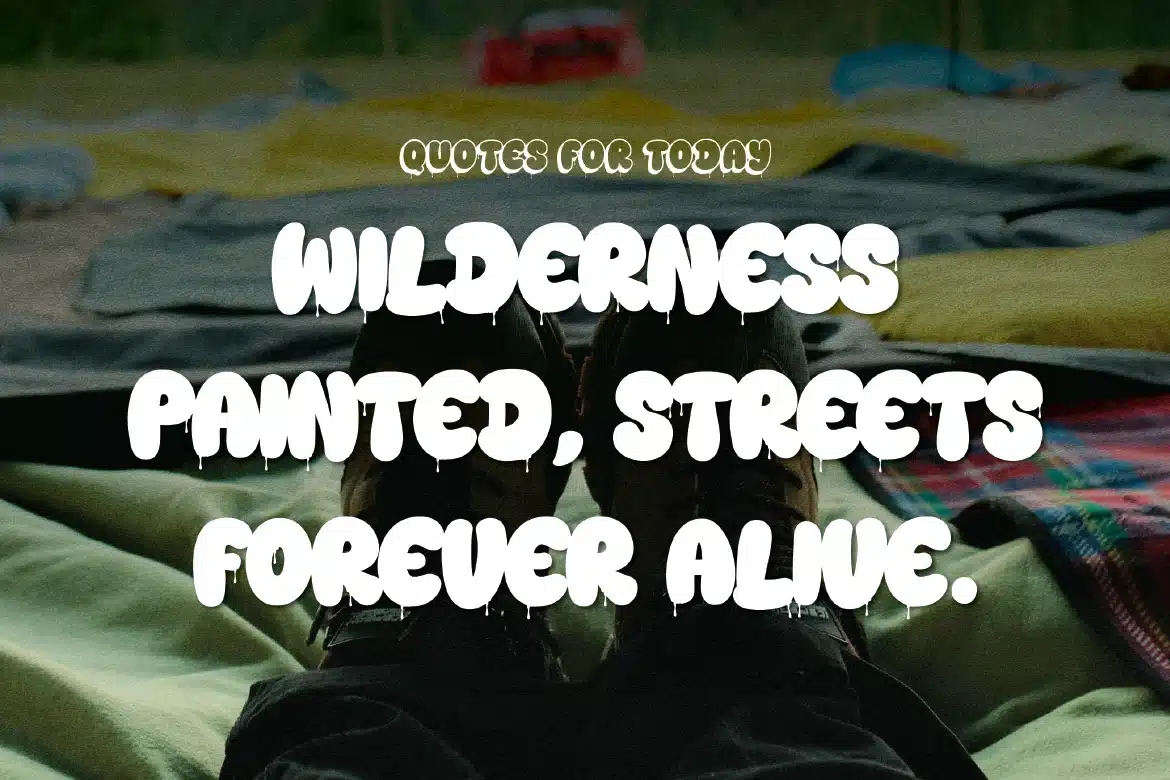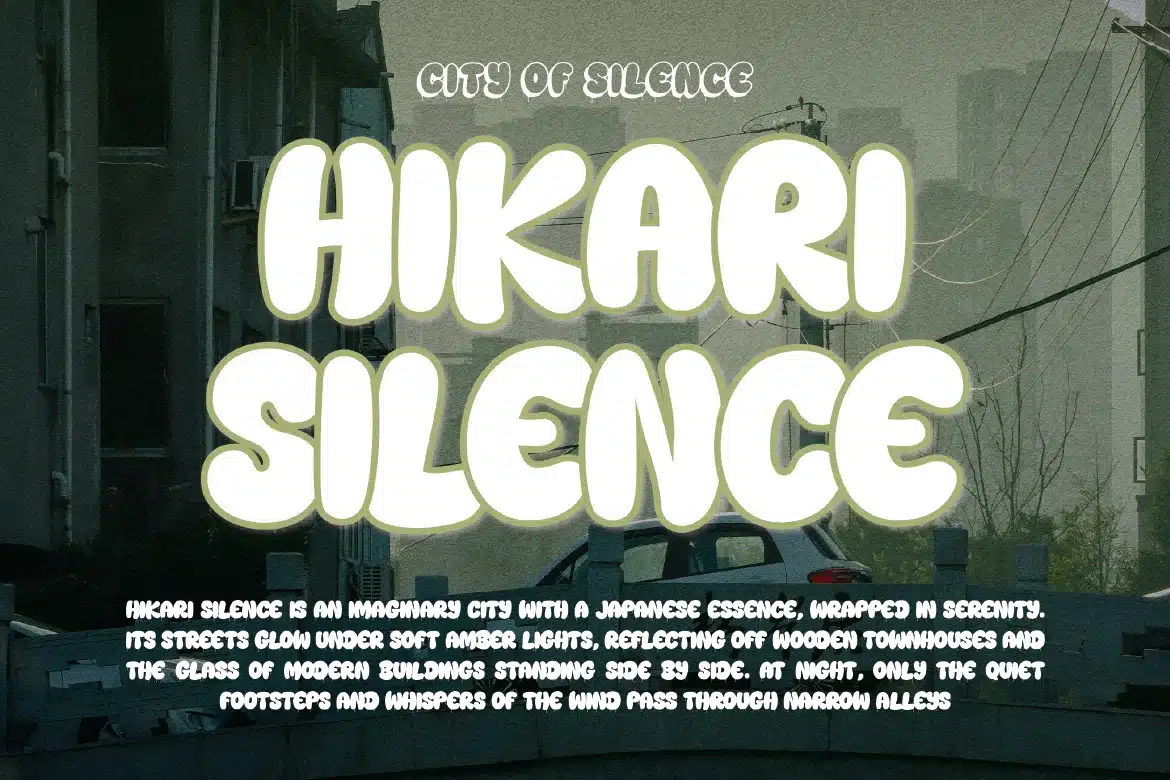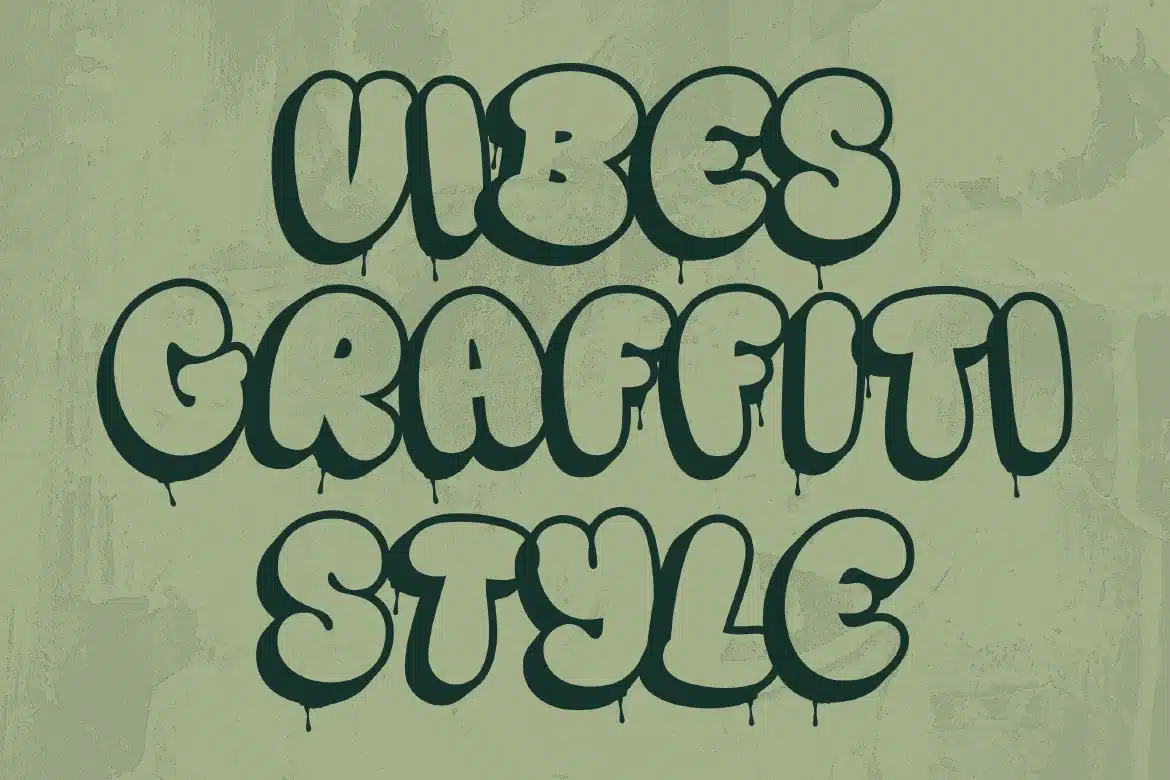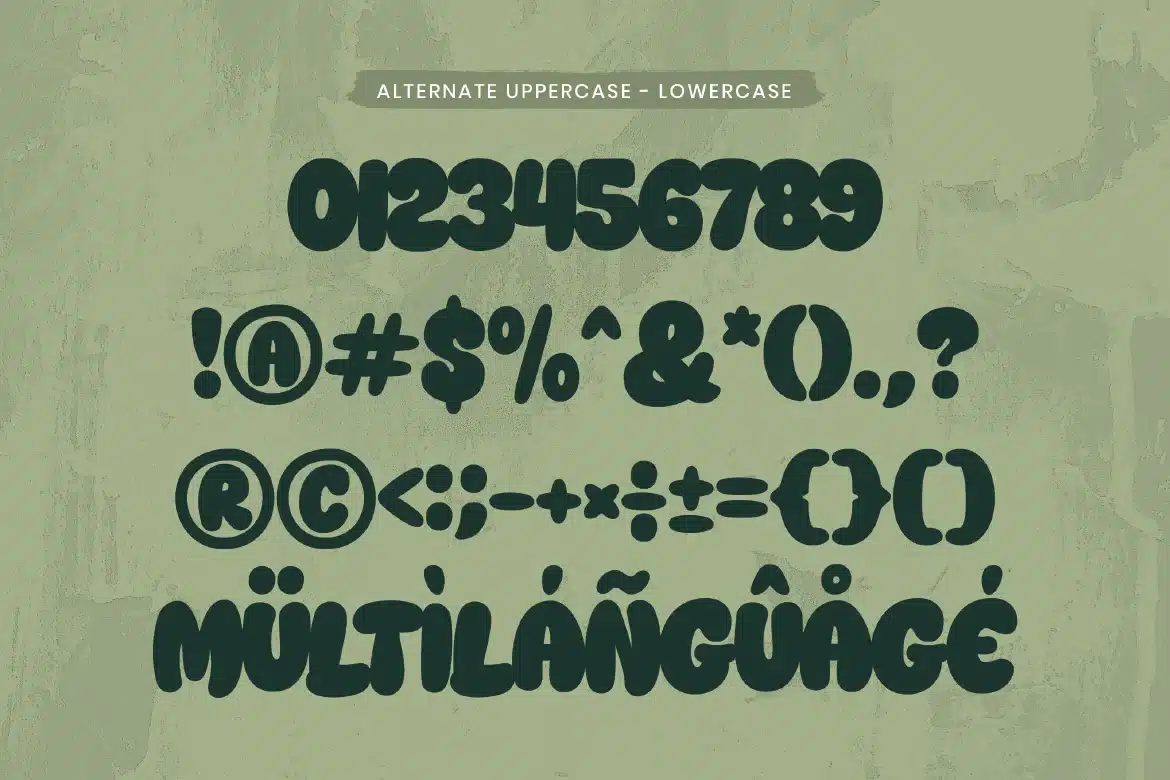
Graffiti Bubble Display Font – Tagger Crew
Graffiti Bubble Display Font - Tagger Crew
Tagger Crew is a bold graffiti bubble display typeface inspired by street art culture and urban expression. With its rounded shapes, playful curves, and dynamic style, this font captures the raw energy of graffiti tags and wall art. Its chunky bubble form creates a fun, eye-catching look that instantly stands out in any design. Whether you’re creating urban branding, posters, or street-style visuals, Tagger Crew delivers a lively and rebellious vibe full of personality.
Who Should Use Tagger Crew?
Tagger Crew is perfect for designers, artists, and creatives who want to bring an urban, street-inspired feel into their work. It’s especially suited for projects that require a bold, playful, and expressive graffiti style.
Graffiti and hip hop designs
Posters and music artwork
YouTube thumbnails and content
Social media graphics
Kids and playful designs
Sticker and merchandise design
Bold display typography